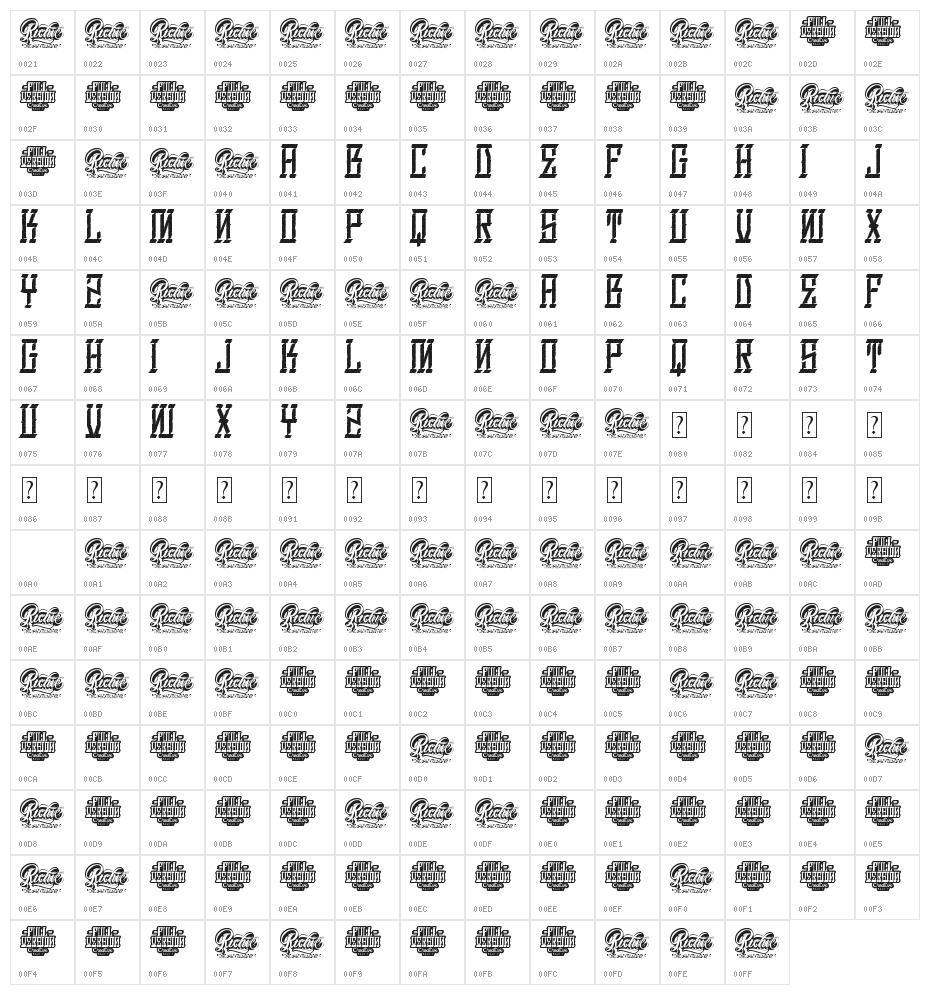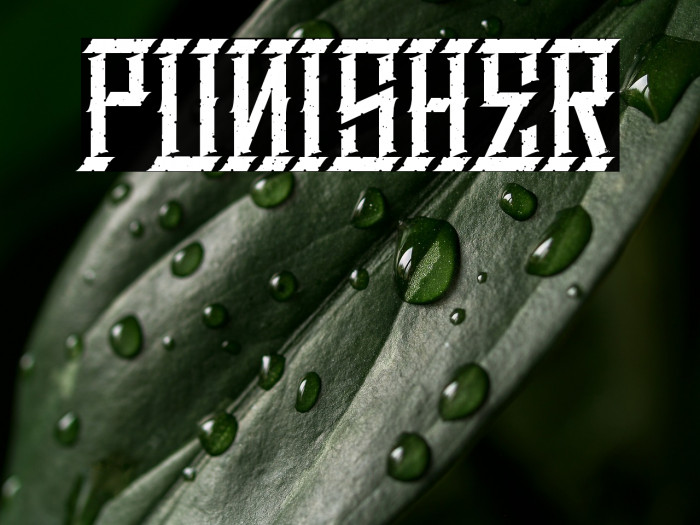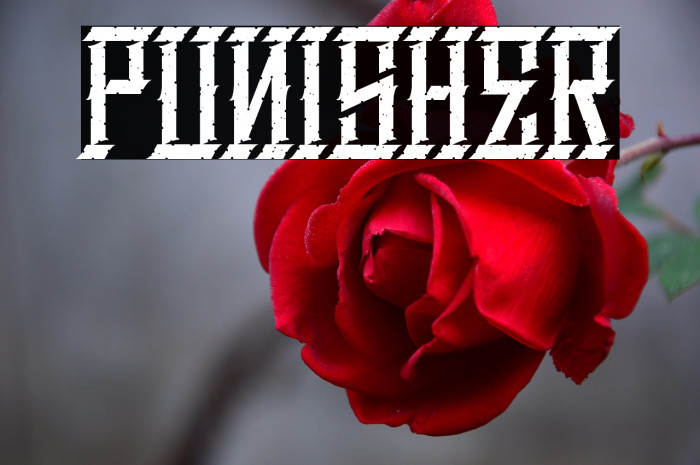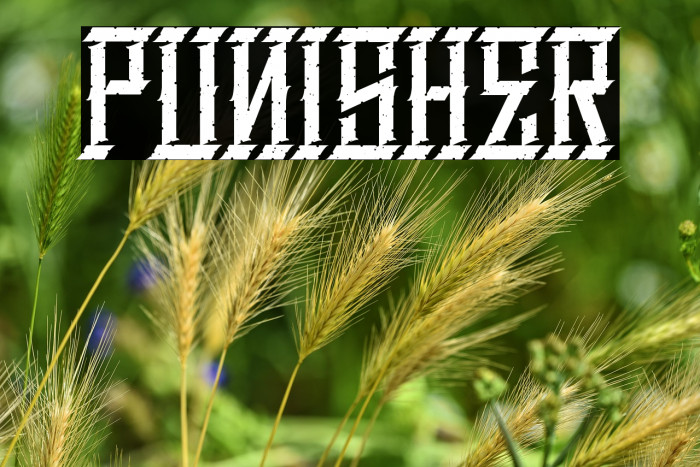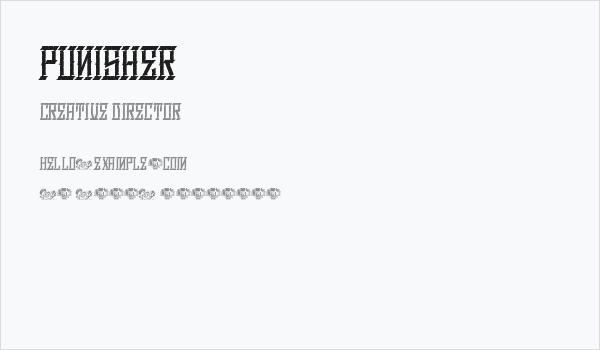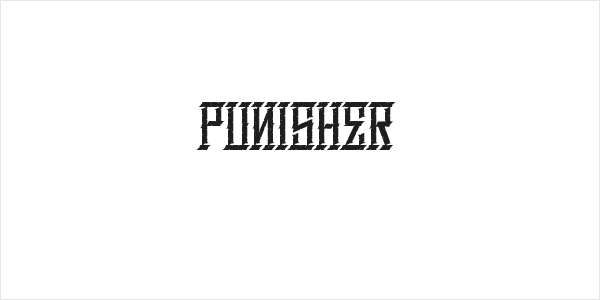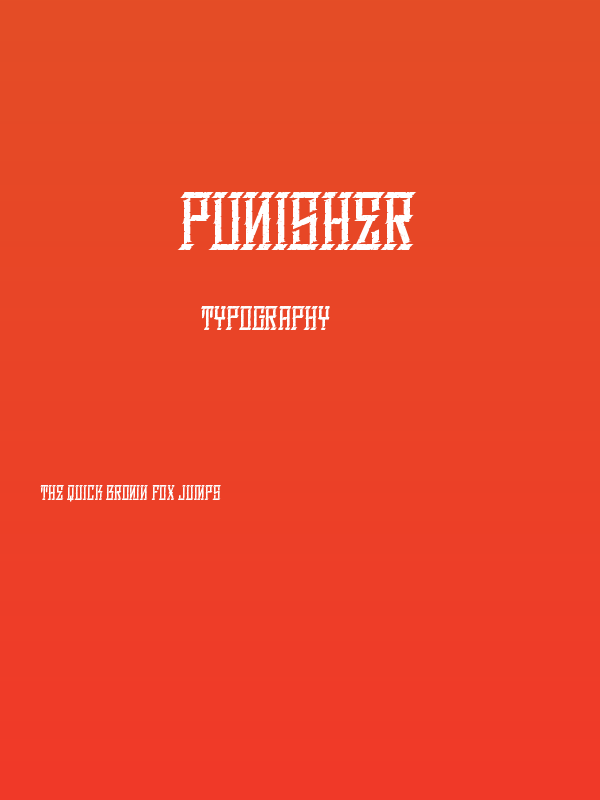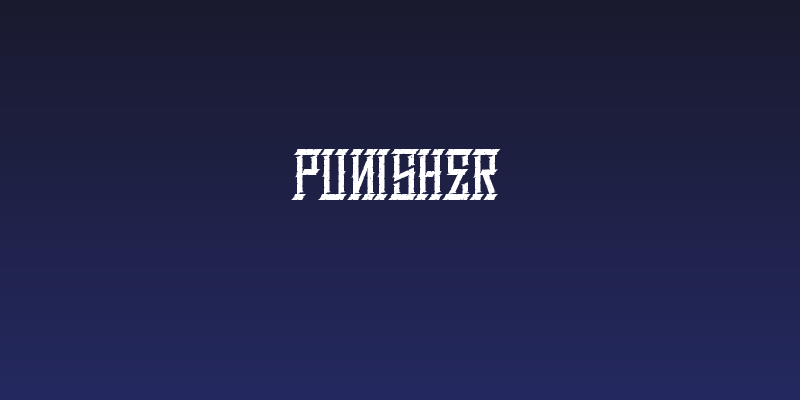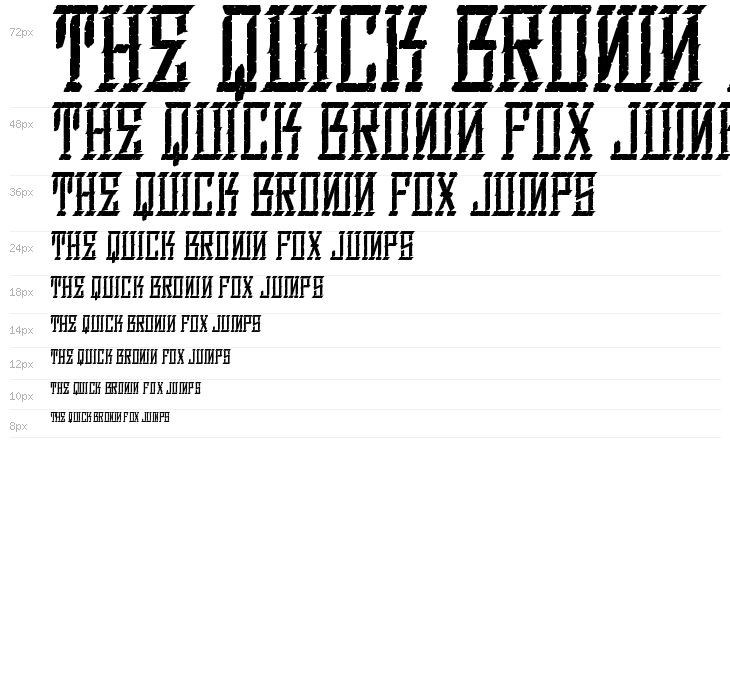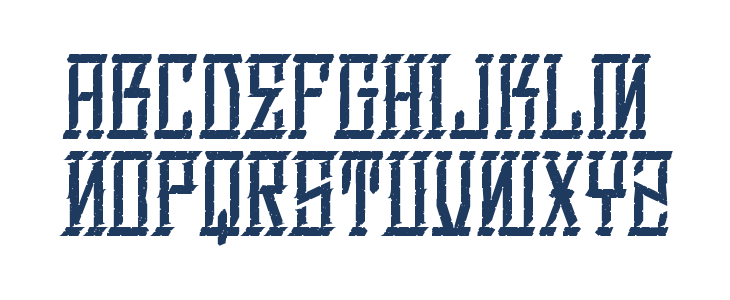
Punisher Font
Punisher Description
This font features a bold and aggressive design, characterized by sharp, angular edges and a distressed texture that gives it a rugged, gritty appearance. The uppercase letters are particularly striking, with a blocky, geometric style that commands attention. The lowercase letters maintain this boldness, ensuring consistency throughout the typeface. The numbers and special characters are equally robust, making them suitable for impactful designs. The overall aesthetic is reminiscent of a military or industrial theme, making it ideal for projects that require a strong, authoritative presence.
| Overall Style | Modern, Industrial |
| Proposed Projects | Ideal for use in posters, logos, video game graphics, and any design requiring a strong, impactful presence. |